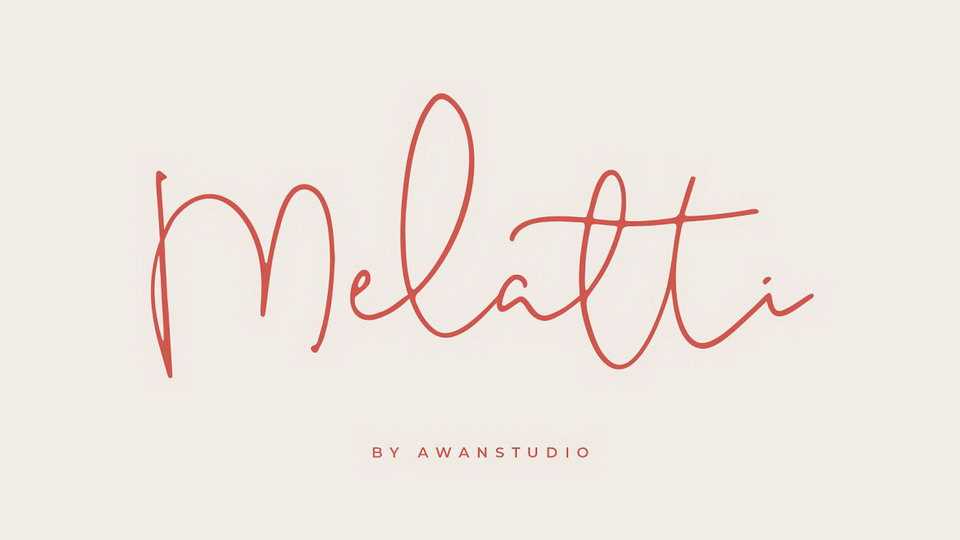
Download Melatti font, a charming signature style script, that allows you to create stunning and easy hand-lettering in an instant. Melatti is ideal for the logo, quotes, wedding and more.
Designer: Awan Studio